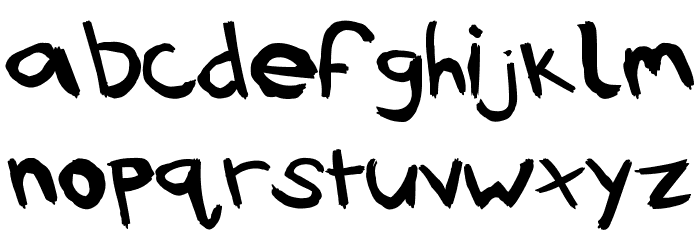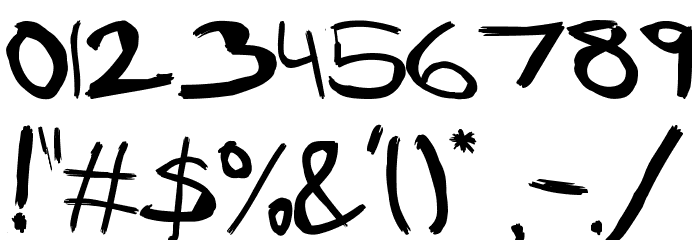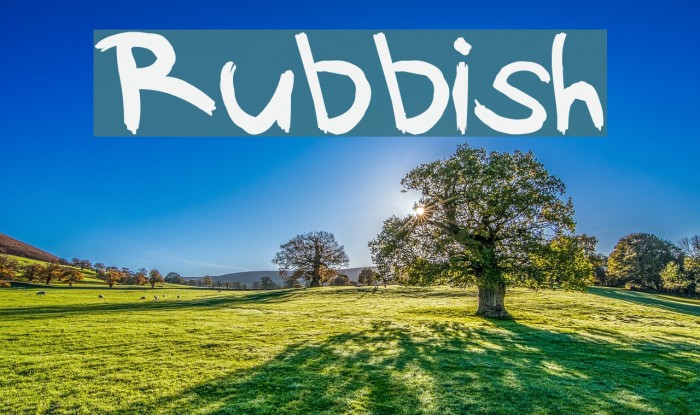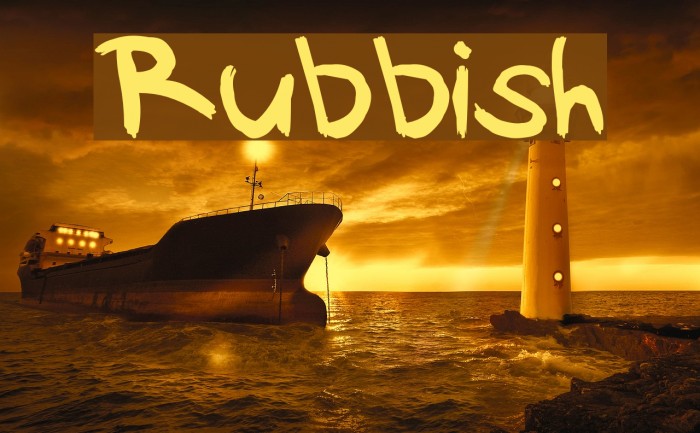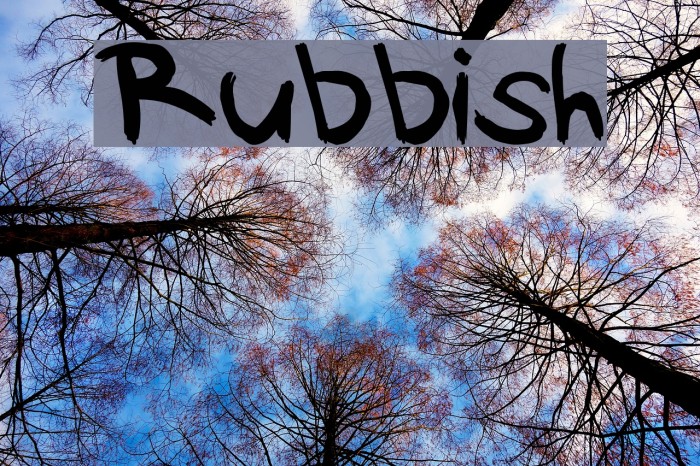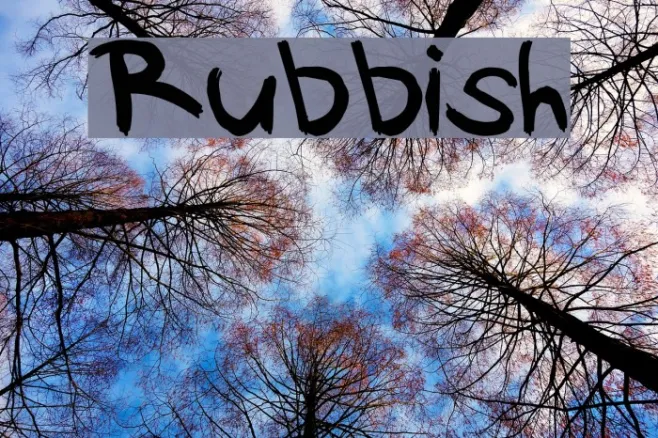
Rubbish Font
This font exhibits a bold, expressive style with a hand-drawn appearance, characterized by its irregular, brush-like strokes. The letters have a playful and dynamic feel, with varying thickness and a slightly rough texture that adds to its informal charm. The uppercase and lowercase letters maintain a consistent flow, while the numerals and special characters complement the overall aesthetic. This font is ideal for projects that require a personal touch or a creative, artistic vibe.
A bold, hand-drawn font with expressive, brush-like strokes.
- Proposed Projects: Perfect for artistic posters, creative branding, children's book covers, and informal event invitations.